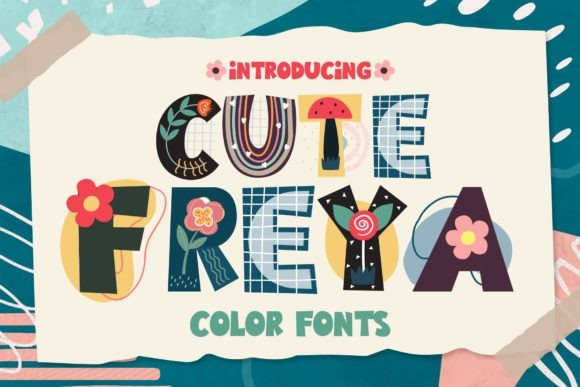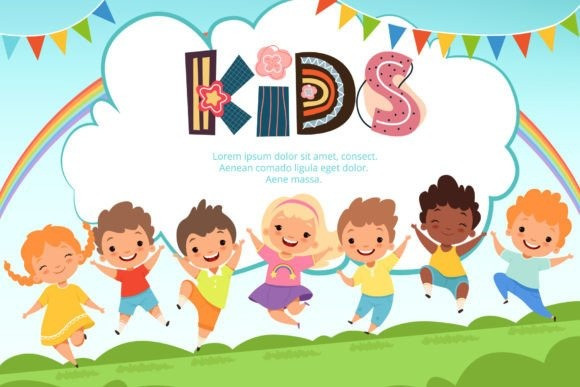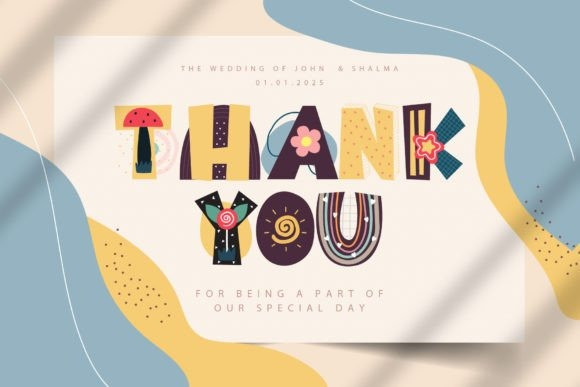
Cute Freya Font
Cute Freya is a color font and a stylish, cute and fun decorative font that blends perfectly with the Display font. Fall in love with its authentic feel and use it to create gorgeous invitations, beautiful stationary art, eye-catching social media posts, and cute greeting cards. Add this beautiful display font to each of your creative ideas, and notice. how it makes them stand out.